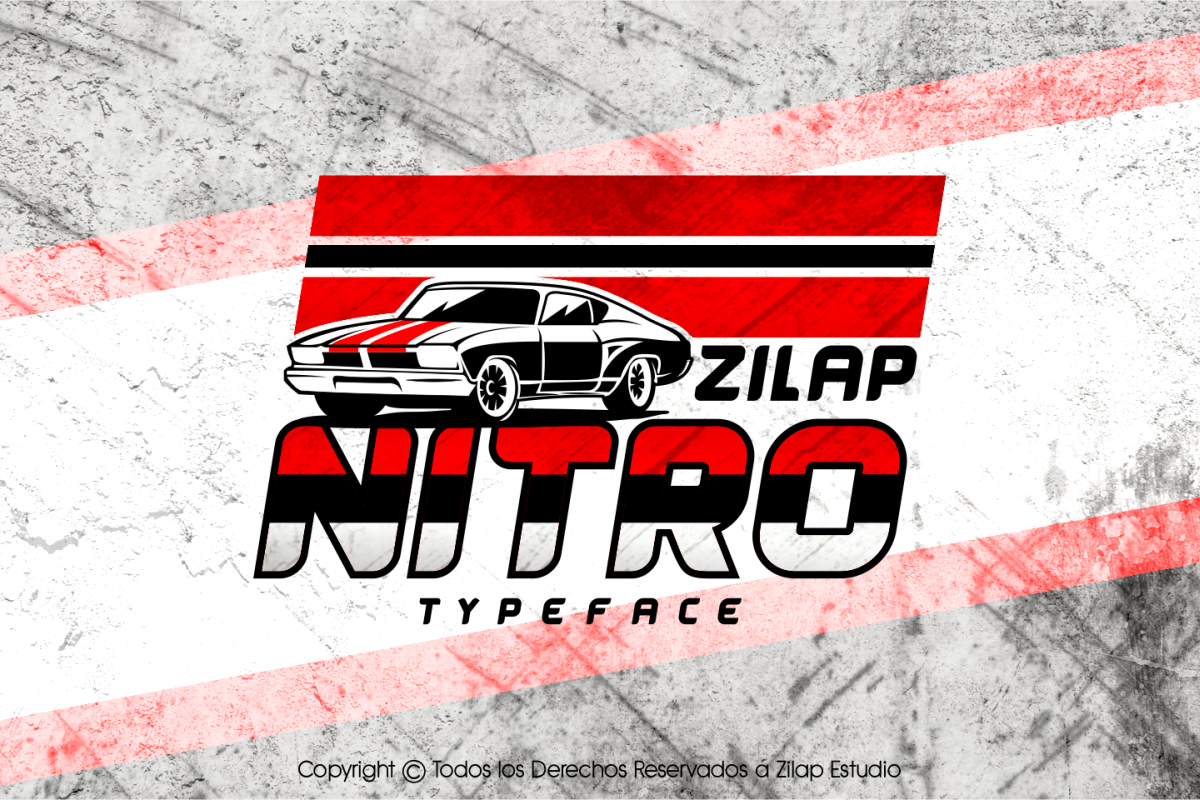
This source was created for the entire automotive and speed field.
Made for posters of sporting events and logos relating to the motor industry, give proof to this great source.
Esta fuente fue creada para todo el campo automotriz y de velocidad.
Hecha para carteles de eventos deportivos y logos referentes a la industria de motores, dale una prueba a esta gran fuente.